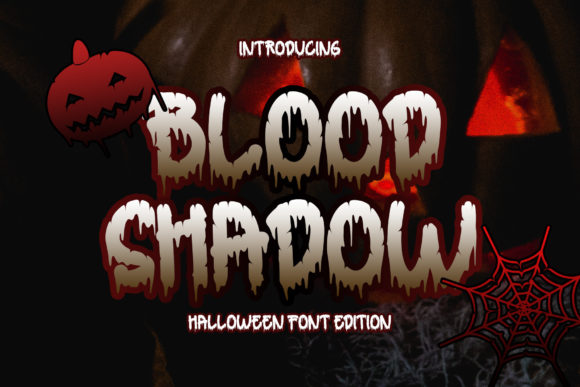
The Creepy Charm of Blood Shadow Font: A Designer’s Delight
I still remember the Halloween design project that had me scratching my head. I was tasked with creating a spooky invitation for a client’s haunted house event, and I was determined to make it stand out. As I browsed through font libraries, I stumbled upon the Blood Shadow Font – a cool and creepy display font that instantly caught my attention. With its PUA encoding, I knew I could access all the glyphs and swashes with ease, making it perfect for adding that extra oomph to my design.
What I Love About Blood Shadow Font
- ✨ Unique and eye-catching design: Blood Shadow Font has a distinctive, eerie feel that immediately grabs attention.
- ✅ PUA encoded for easy access: I can easily navigate through the glyphs and swashes to create a customized design.
- 💡 Perfect for Halloween and spooky themes: The font’s creepy vibe makes it an ideal choice for Halloween designs, haunted house invitations, and other spooky-themed projects.
While Blood Shadow Font is an excellent choice for designers, there are a few quirks to keep in mind:
- ⚠️ Limited use outside of spooky themes: The font’s distinct style might not be suitable for other design projects that require a more neutral or elegant look.
- 🤔 Requires some experimentation: To get the most out of Blood Shadow Font, you might need to experiment with different glyphs, swashes, and OpenType features.
The Backstory Behind Blood Shadow Font
The story behind Blood Shadow Font is shrouded in mystery, but it’s said to have been inspired by ancient, forgotten rituals and the whispers of the dead. The font’s creator aimed to capture the essence of the supernatural and bring it to life through typography. Whether or not you believe in the legend, one thing is certain – Blood Shadow Font is a design gem that’s sure to cast a spell on your audience.
| Font Name | Blood Shadow Font |
| Author | Nox Studio |